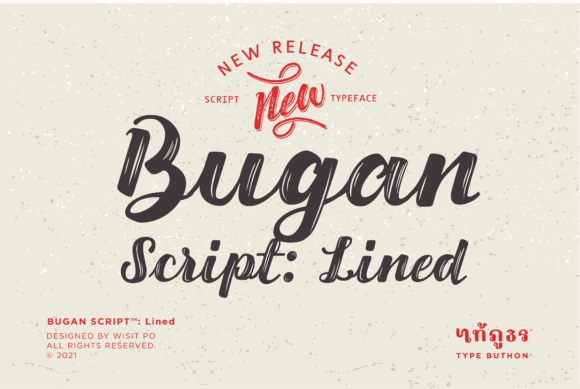
Have you ever been working on a design project and you just can’t seem to get the right feel? You’ve tried countless fonts, colors, and layouts, but nothing seems to capture the essence of your idea. That’s where the Bugan Script Font comes in – a flowing brushed handwritten font that adds a touch of nostalgia and character to any design.
With its strong, confident, and dynamic feel, Bugan Script Font is perfect for designers looking to add a personal touch to their projects. Whether you’re creating a logo, a wedding invitation, or a social media graphic, this font is sure to make your design stand out. Its unique, handwritten style is both timeless and trendy, making it a valuable addition to any designer’s toolkit.
Key Features of Bugan Script Font
- Font Family: Bugan Script Font, a beautiful, elegant script font designed for various applications.
- Font Size: Supports a wide range of font sizes, from 8pt to 72pt, allowing for flexibility in various design contexts.
- Unique Characteristics: Features a unique, handwritten style with flowing connections and subtle flair, perfect for creating elegant and sophisticated designs.
- Language Support: Supports multiple languages, including Latin, Cyrillic, and Greek alphabets, making it a versatile choice for global designs.
Review of Bugan Script Font
Overall, I think Bugan Script Font is a lovely addition to any design project. The elegant, handwritten style is perfect for creating a warm and inviting atmosphere.
- Unique, hand-drawn feel that adds a touch of personality to any design
- Beautifully rendered letterforms with subtle flair and movement
- Works well in a variety of contexts, from invitations to branding materials
- Some characters may not be as neatly formed as others, which can affect overall legibility
- Lack of language support for some languages, which may limit its use in multilingual projects
- Not as versatile as some other script fonts, which can make it less suitable for complex layouts
In conclusion, Bugan Script Font is a charming addition to any design library. While it may have some limitations, its unique character and beautiful letterforms make it a great choice for designers looking to add some personality to their projects.